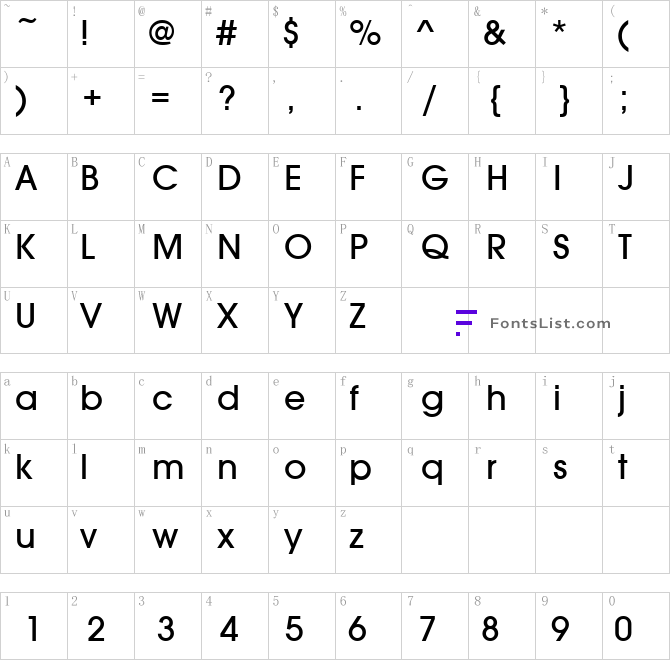
AvantGardeMdITCTT.ttf is a very beautiful artistic font, AvantGardeMdITCTT.ttf is widely used in the design and printing of various books and pictures,AvantGardeMdITCTT.ttf has a strong visual impact,AvantGardeMdITCTT.ttf is a commonly used font in newspapers, magazines and books, and is used in posters, e-commerce Poster design, store design, logo design, font design and other fields.AvantGardeMdITCTT.